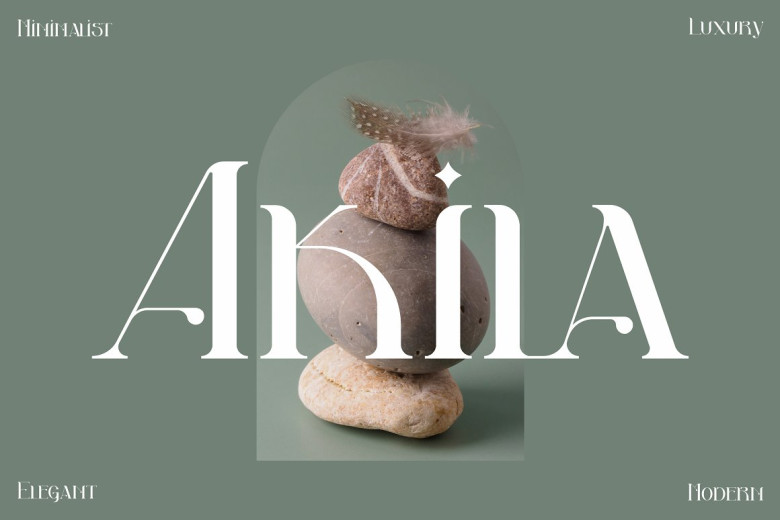
Akila Font
Akila Typeface, with its distinctive serif style and modern appearance, makes an excellent choice for creating classy logos, movie, book name designs, fashion brand clothing labels, magazines, lettering pieces and quotes – plus much more!
Akila Serif Font